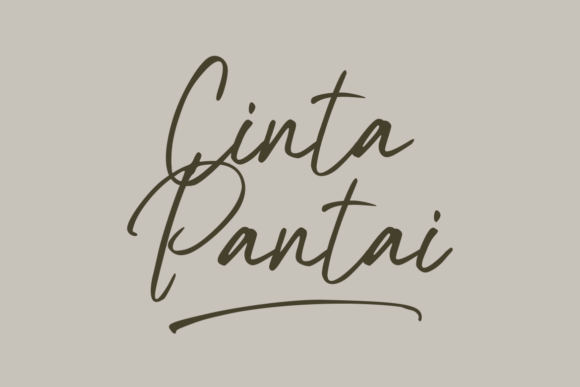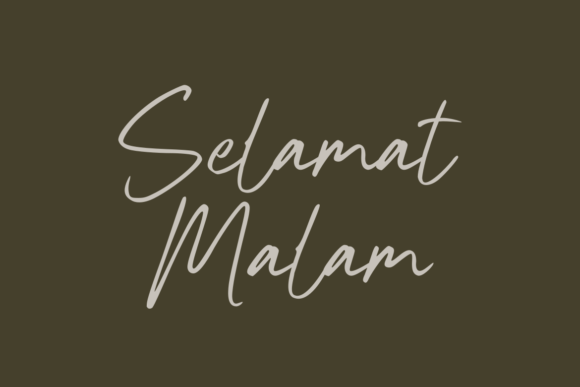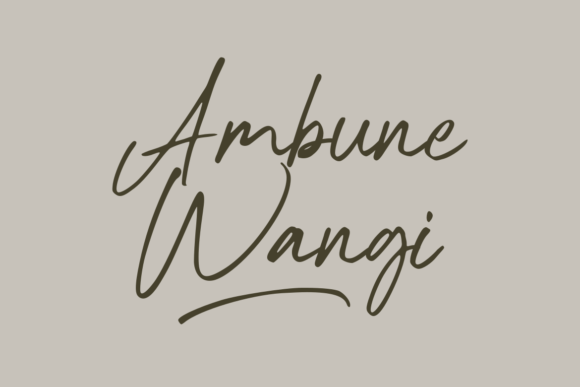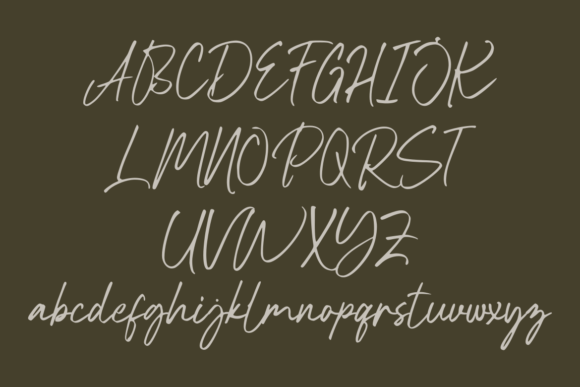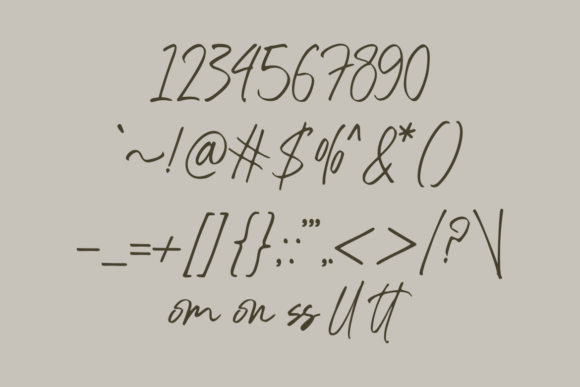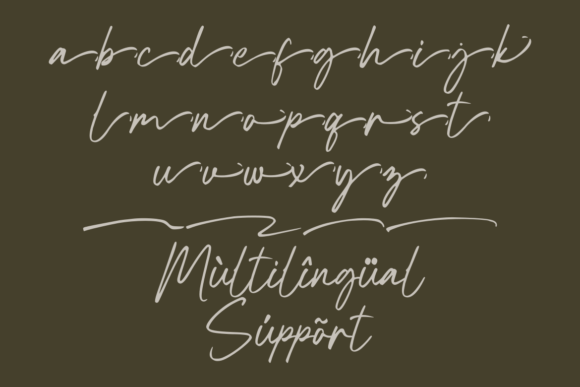
Baleono Font: Elevate Your Designs with Elegance and Sophistication
In the world of typography, a well-crafted font can make all the difference in elevating your designs to new heights. Introducing Baleono, an exquisite handwritten font that is sure to capture your heart. With its perfect blend of classy calligraphic influences and modern freshness, Baleono is poised to become your new favorite font.
The Art of Baleono Font
Baleono is more than just a font – it’s a masterpiece of typographic art. Designed with meticulous attention to detail, this handwritten font exudes elegance and sophistication. Its flowing lines and curves are reminiscent of traditional calligraphy, yet its contemporary feel makes it perfect for modern designs.
What Makes Baleono Special?
- Unique Character: Baleono boasts a distinct personality that sets it apart from other fonts. Its handwritten feel is both personal and engaging, making it ideal for designs that require a touch of warmth and humanity.
- Versatility: Whether you’re working on a branding project, packaging design, or digital content, Baleono adapts seamlessly to various applications. Its flexibility makes it a valuable addition to any designer’s toolkit.
- Legibility: Despite its elegant and cursive nature, Baleono maintains excellent legibility. This ensures that your message is conveyed clearly, making it suitable for both headings and body text.
- Contemporary Appeal: Baleono’s design is not just about aesthetics; it’s also about relevance. Its modern twist ensures that your designs feel current and fresh, appealing to contemporary tastes.
Baleono is a treasure trove of creative possibilities for designers and crafters alike. Here are a few ways you can leverage this beautiful font:
- Branding and Logos: Create stunning brand identities with Baleono. Its unique character can help your brand stand out and make a lasting impression.
- Stationery and Invitations: Add a touch of elegance to your stationery, invitations, and greeting cards. Baleono’s classy appeal is sure to impress.
- Digital Content: From blog headers to social media graphics, Baleono can elevate your digital content, making it more engaging and visually appealing.
- Packaging Design: Make your product packaging stand out with Baleono. Its distinctive look can enhance your product’s visual appeal and contribute to a memorable unboxing experience.
Baleono is more than just a font – it’s a design companion that can help you create stunning, memorable projects. With its exquisite handwritten design, classy calligraphic influences, and contemporary freshness, Baleono is set to become your go-to font for a wide range of design applications. Whether you’re a designer, crafter, or simply someone who appreciates beautiful typography, Baleono invites you to explore new creative horizons. So why wait? Fall in love with Baleono and take your designs to the highest levels!